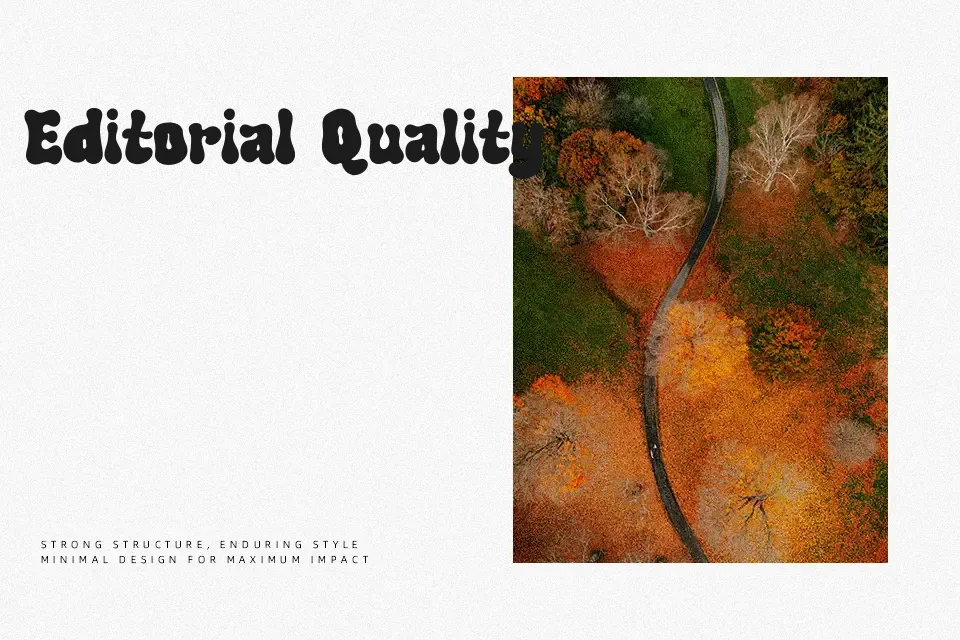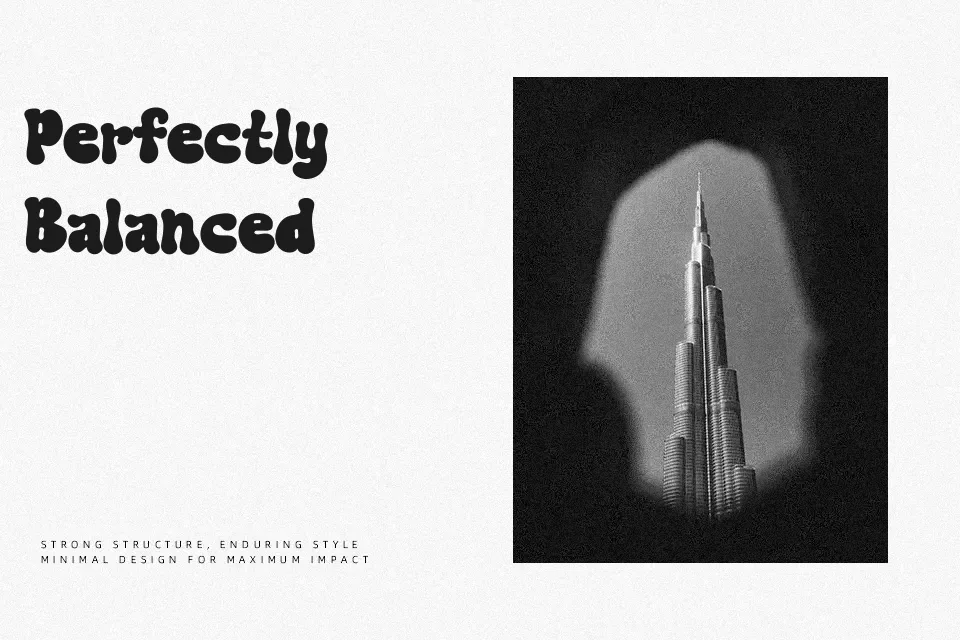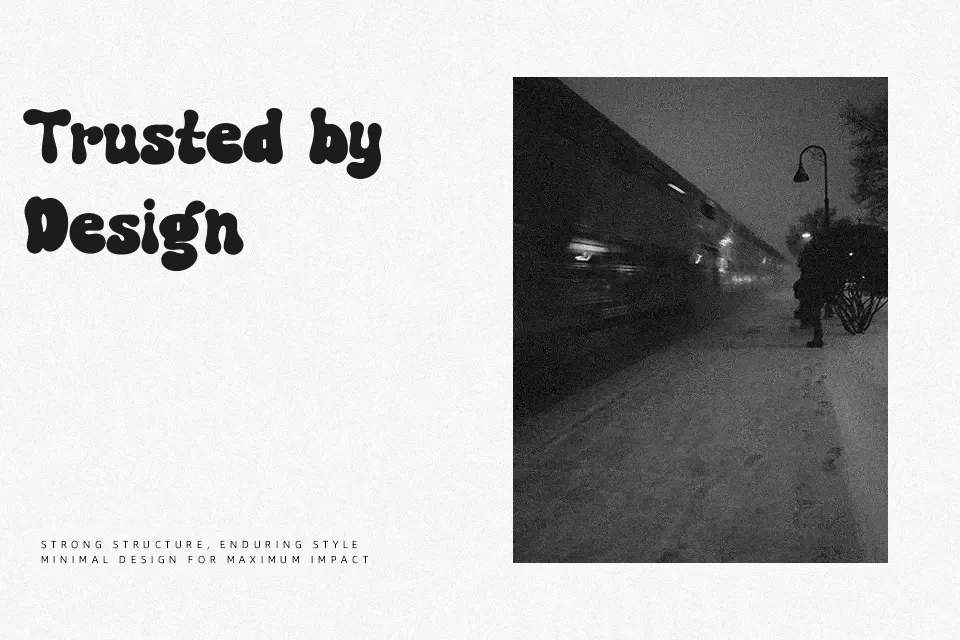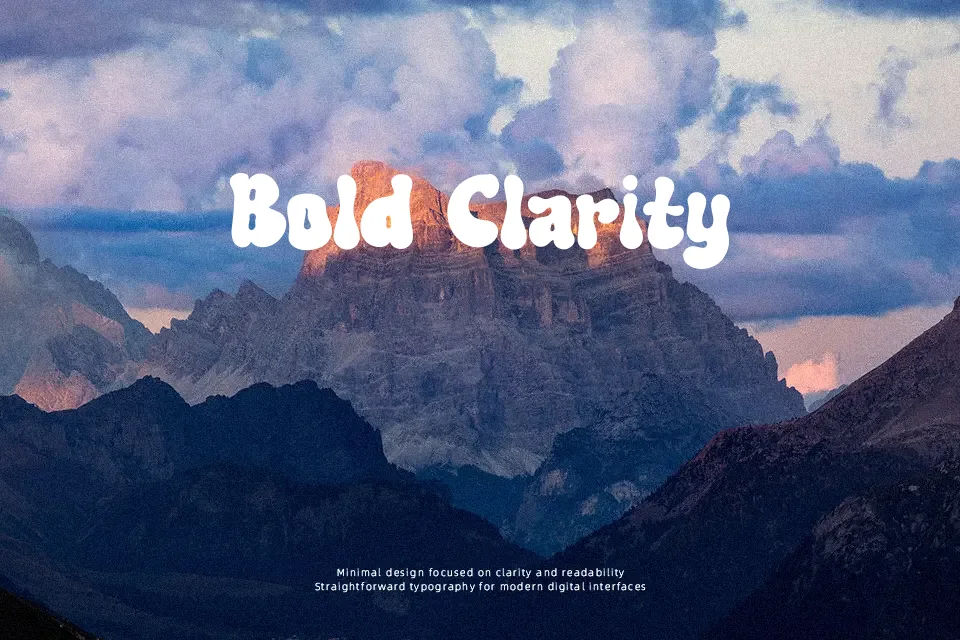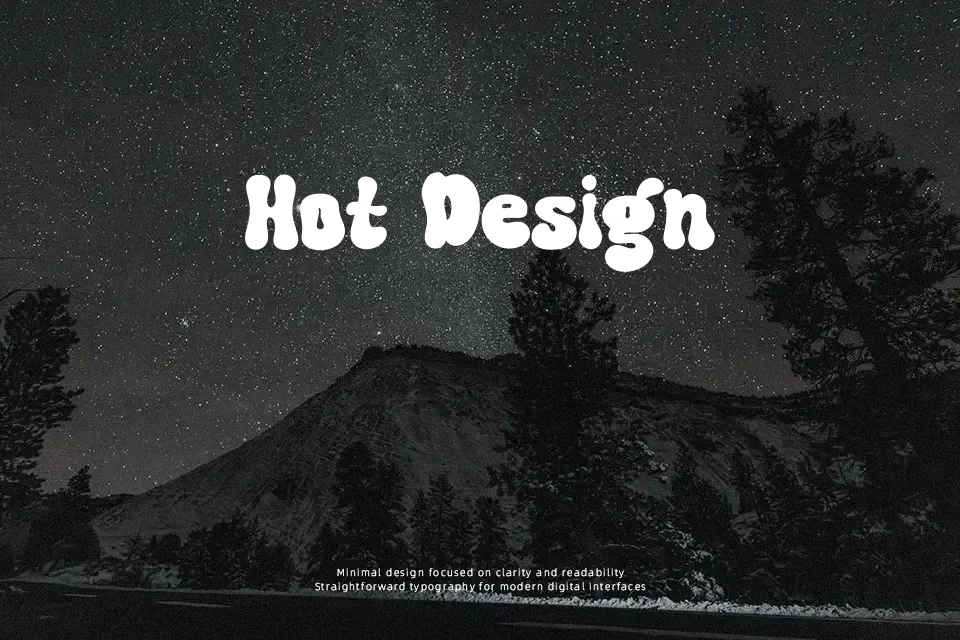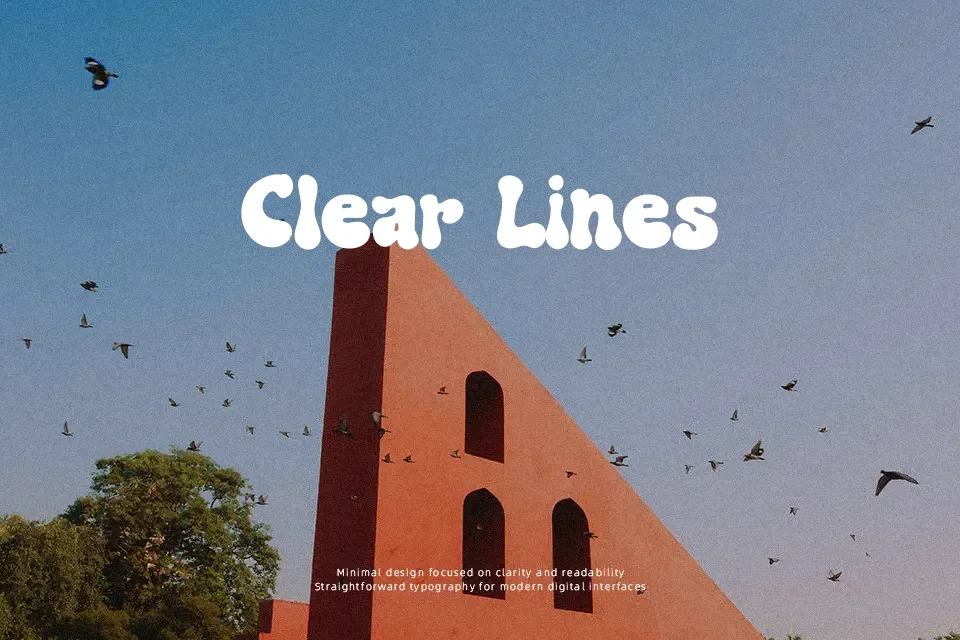
Swipe Soul Font
Swipe Soul Font is a decorative display typeface built for short, attention-led wording rather than extended reading. Its stylized letterforms create a strong visual rhythm, with substantial strokes and expressive proportions that give headlines a prominent presence. The spacing works more comfortably when the type is allowed room to breathe, especially in larger compositions. It is a practical choice for posters, cover art, product labels, and logo-style titles that need a playful groovy tone. The decorative construction is less effective in small sizes, where detailed shapes and close visual relationships can reduce immediate clarity.
Best For: music poster headlines,album cover titles,retro product packaging,apparel graphics
Perfect for headline, logo, and music, with a bold and decorative style.